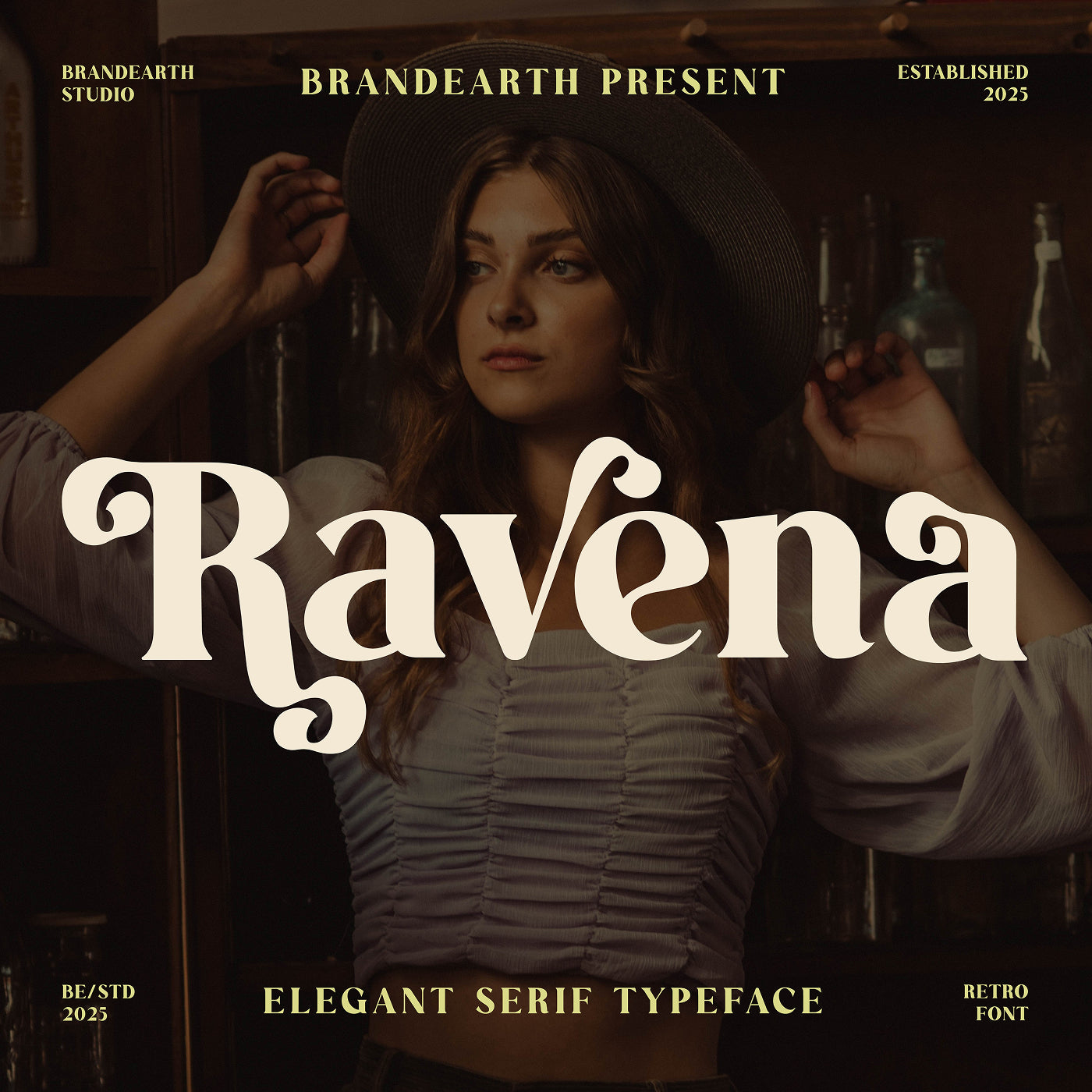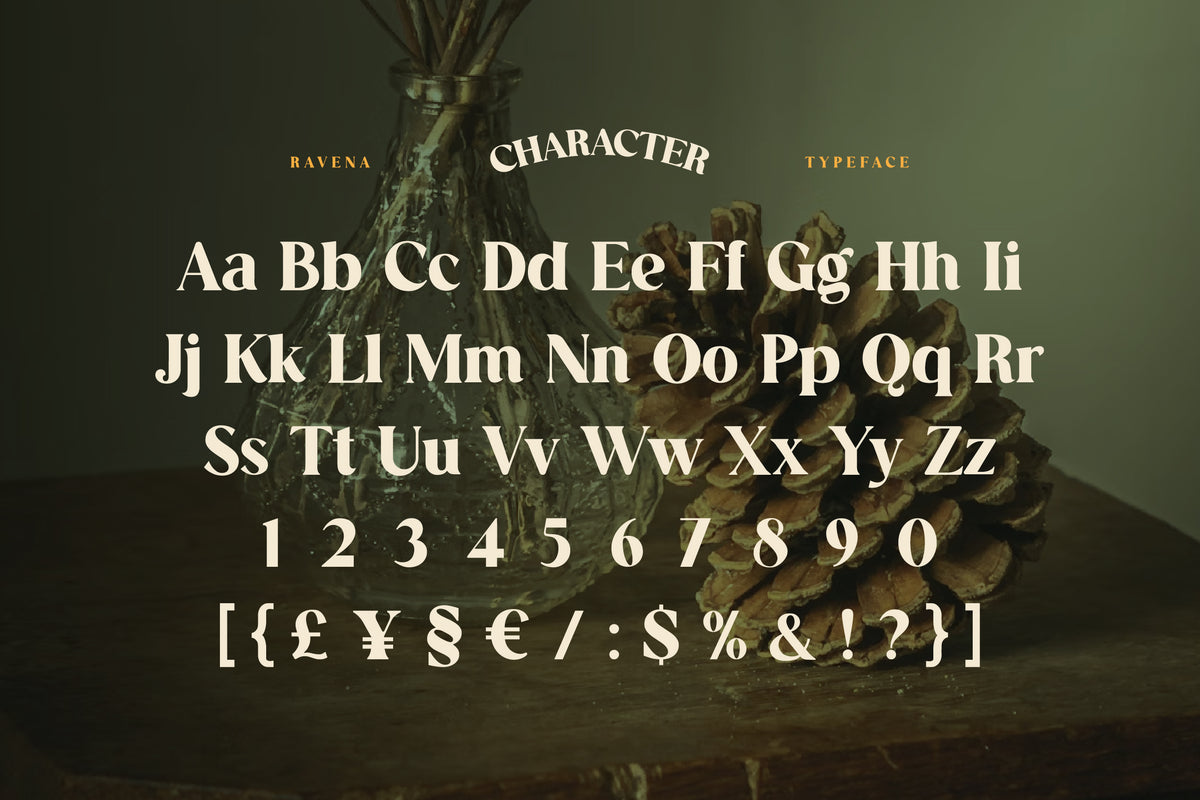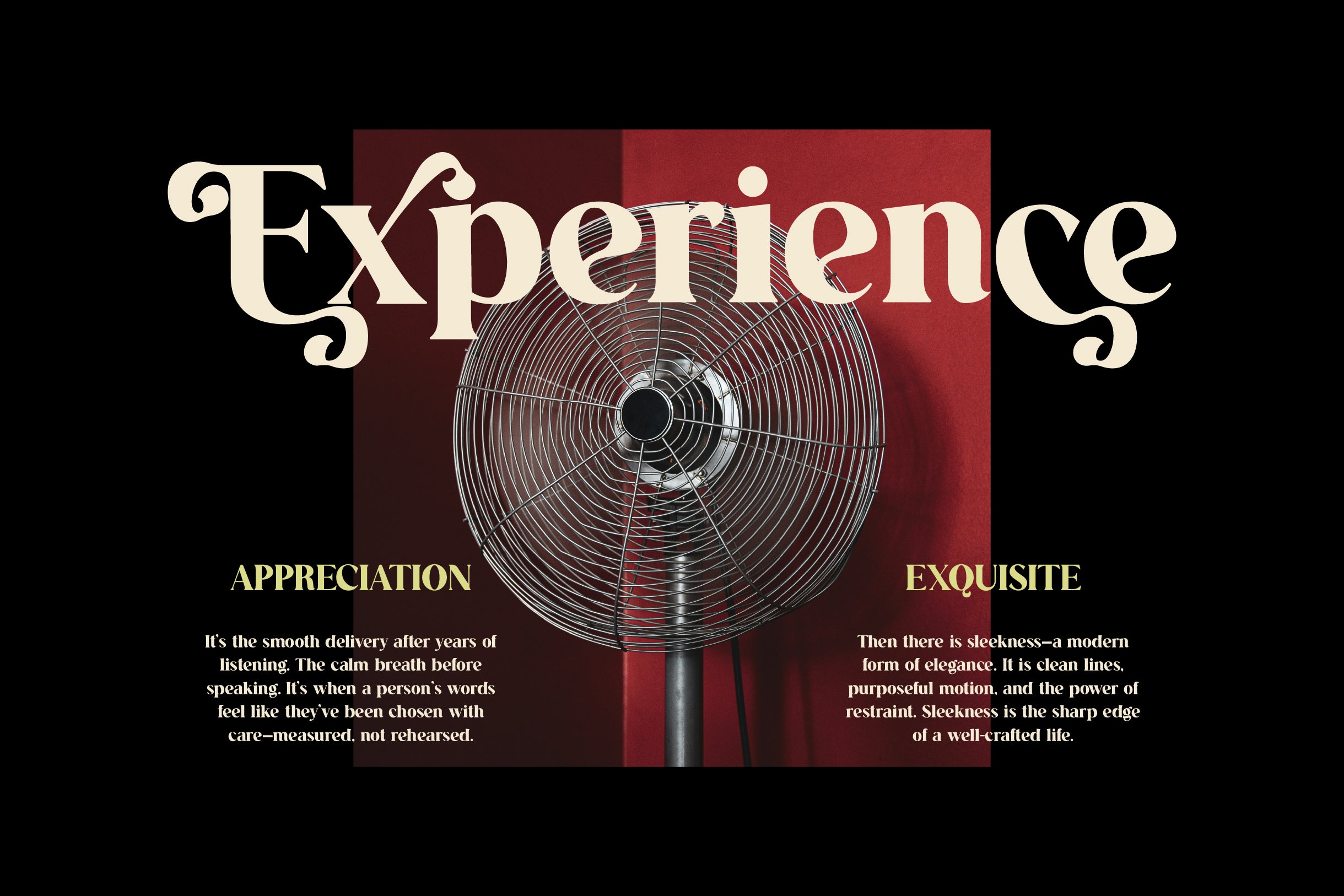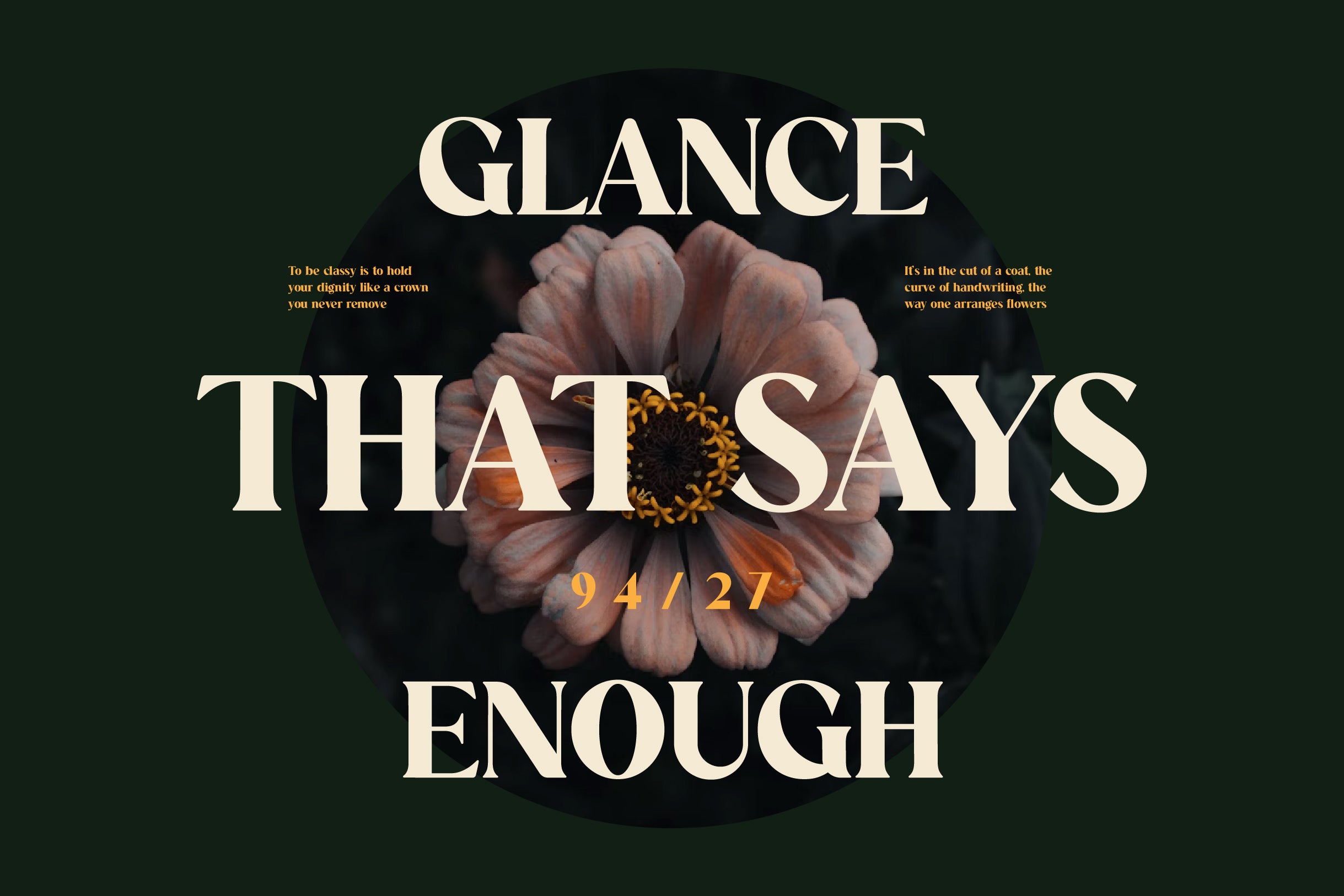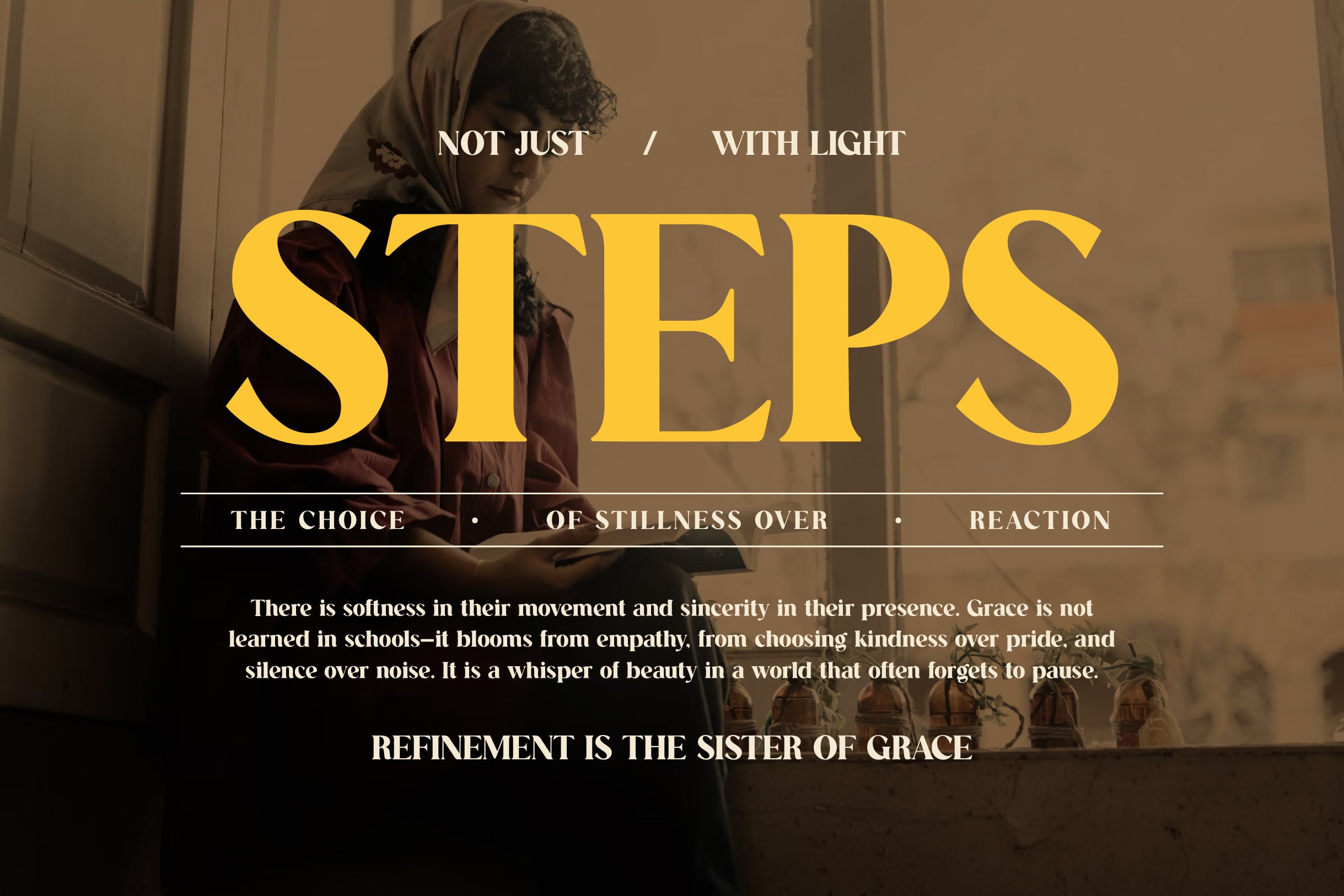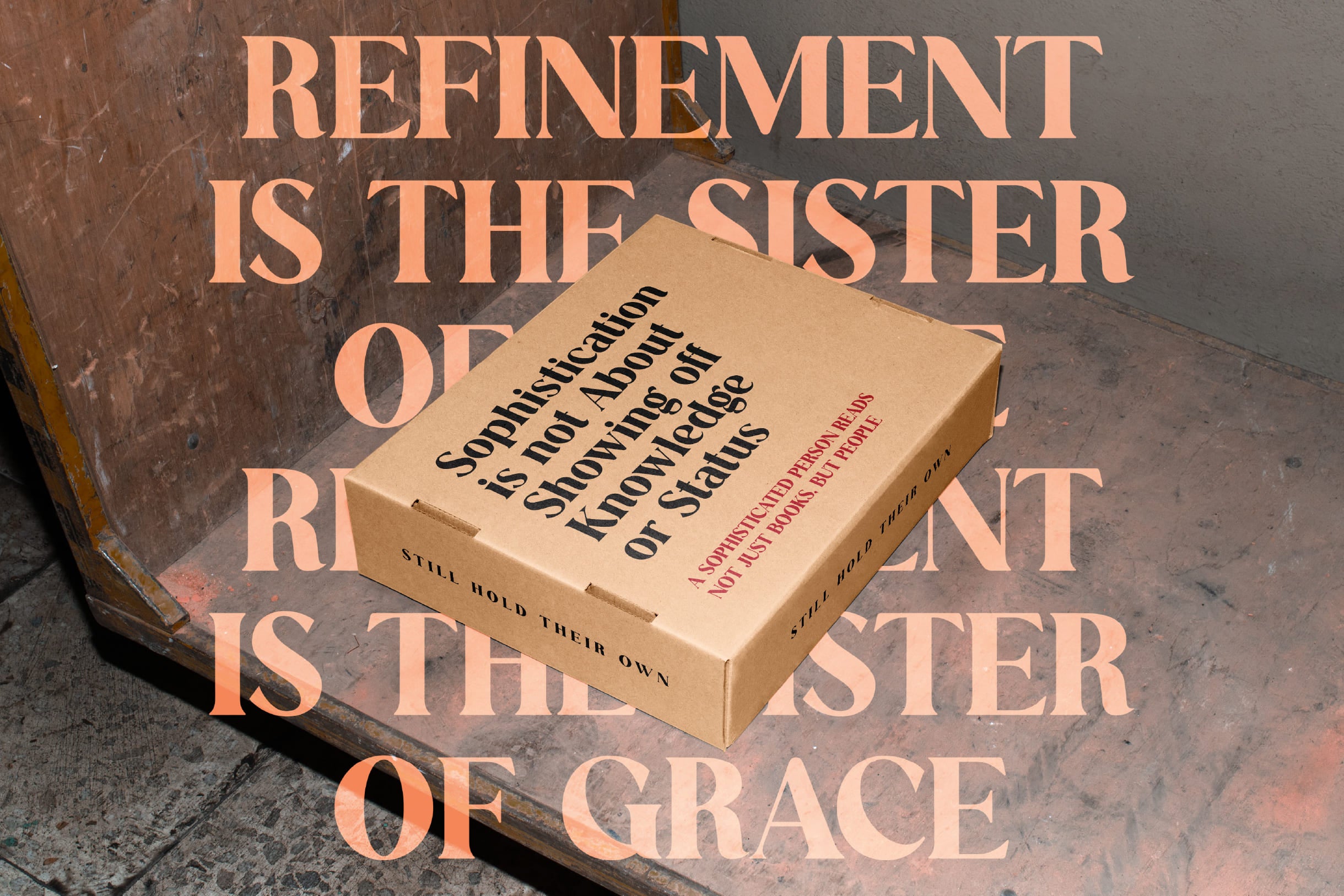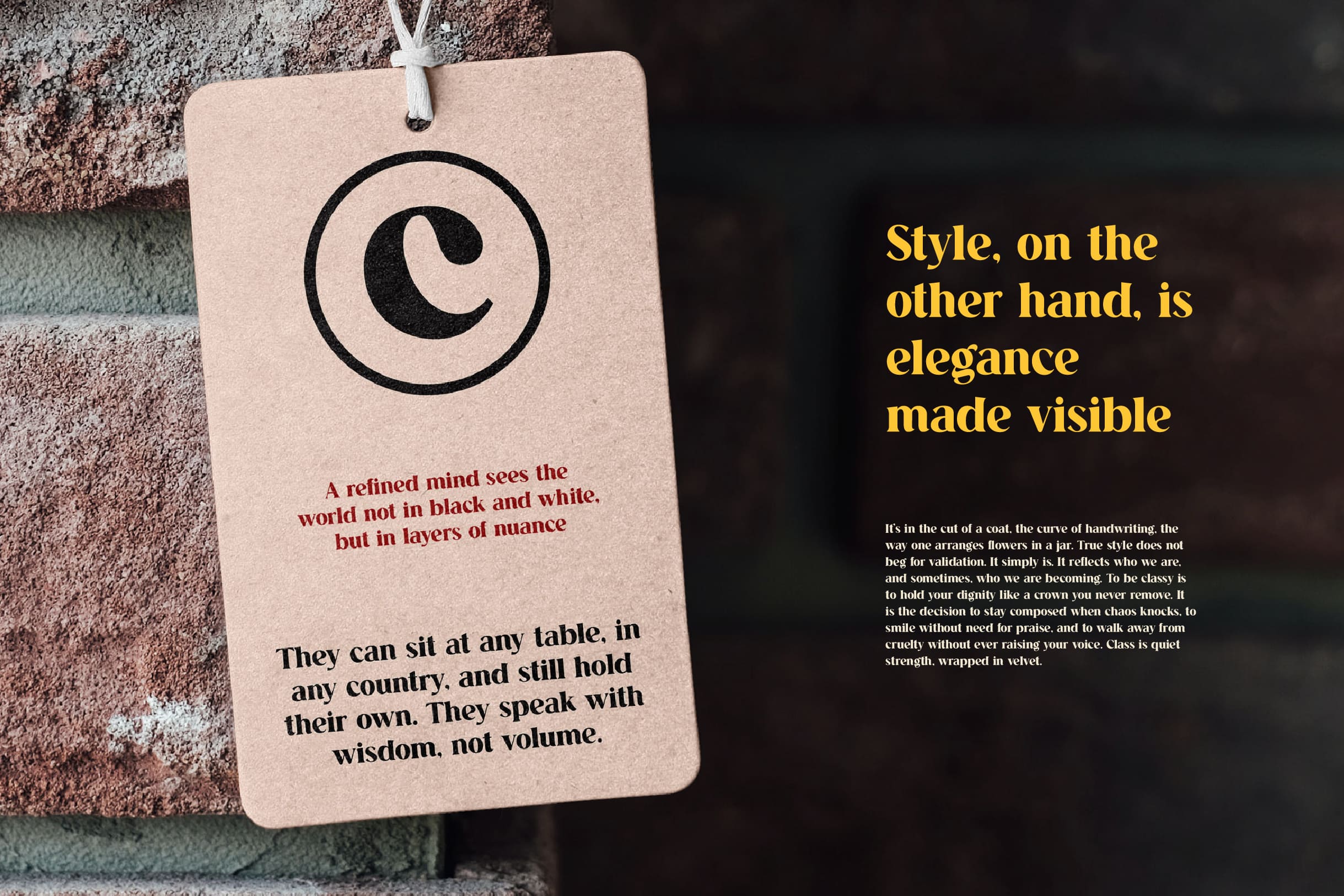
Ravena Elegant Serif Typeface Font
Ravena is an elegant serif typeface that embodies modern sophistication and timeless class. With a clean design, bold presence, and refined details, it is ideal for luxury branding, wedding invitations, editorial layouts, and fashion-forward designs. This typeface offers excellent versatility and readability, making it a perfect choice for logos, headlines, and stylish visual identities that require a touch of grace and authority.
Ravena is a serif typeface available in TTF, OTF, and WOFF formats, featuring uppercase and lowercase letters, ligatures, alternates, numerals, punctuation, and multilingual support.